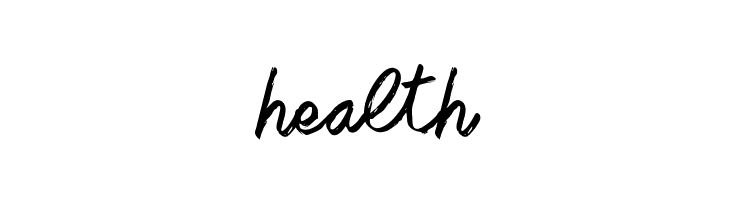
A flowing, elegant script font with artistic curves.
A bold, elegant script font with a dynamic and sophisticated style.
A bold, energetic handwritten font with dynamic strokes.
A bold, expressive script font with a hand-drawn, cursive style.